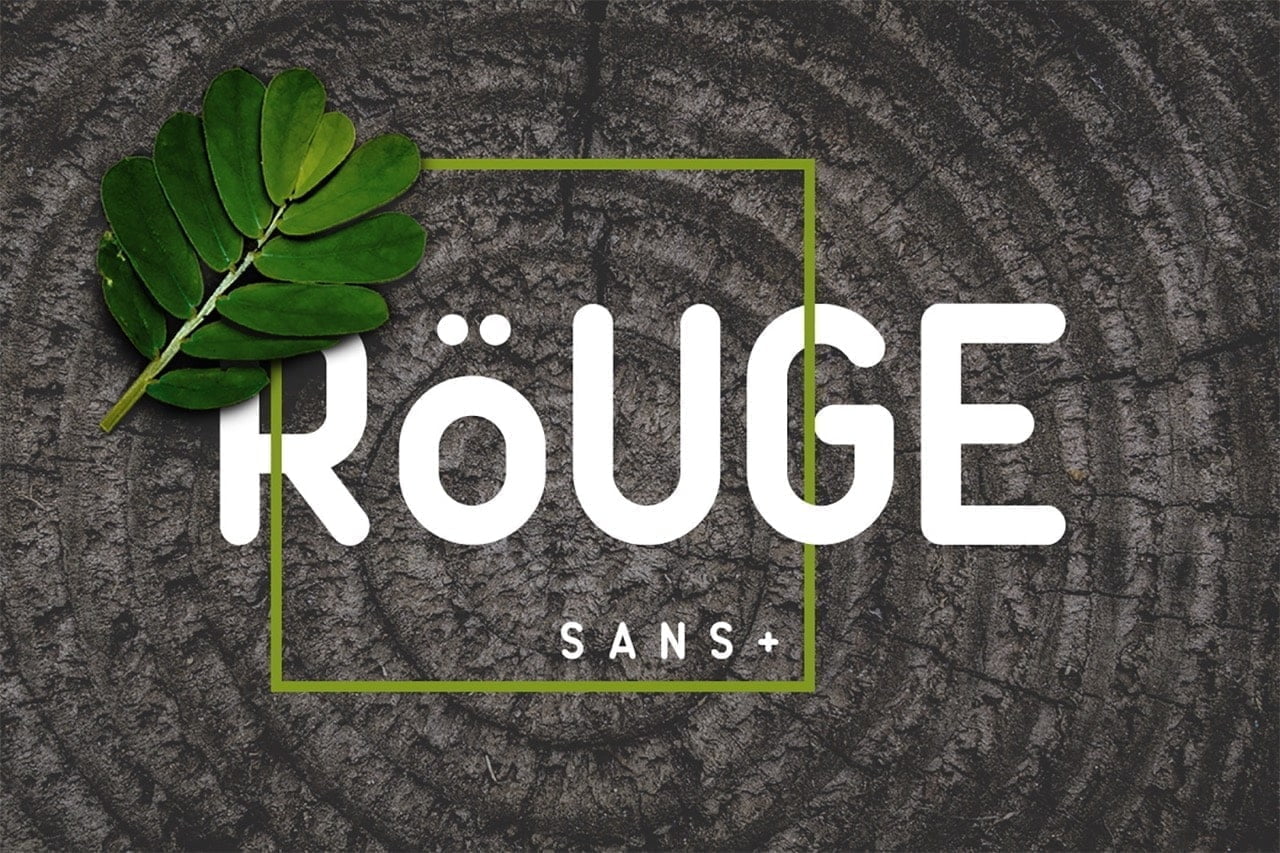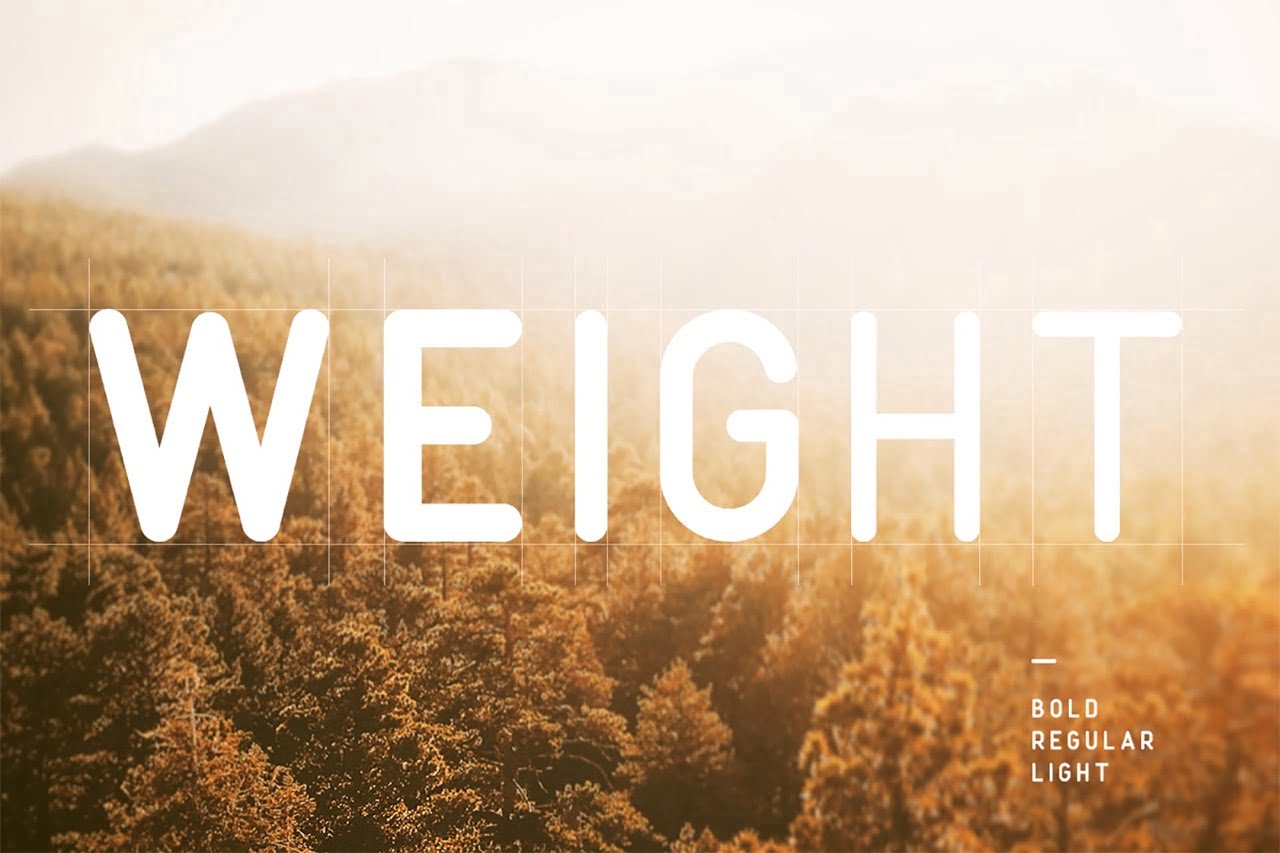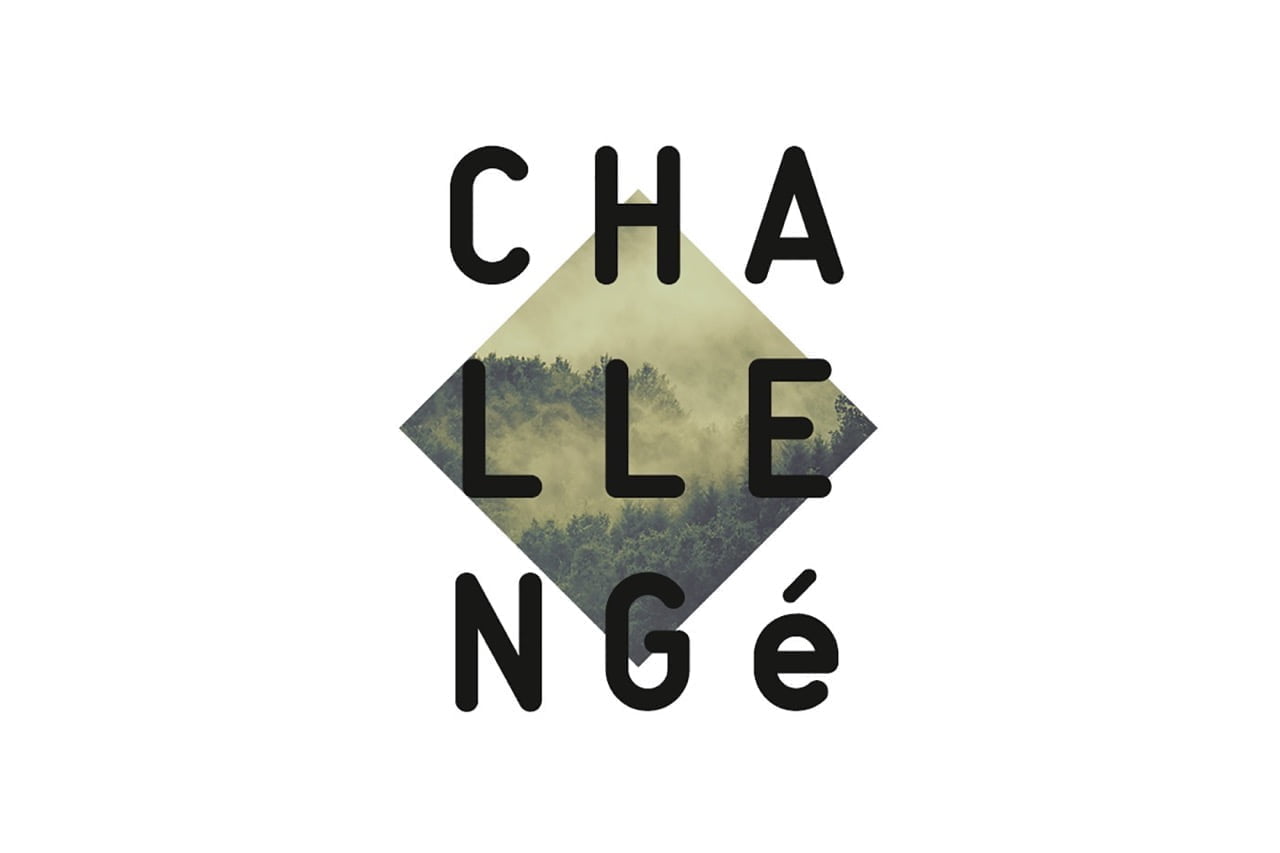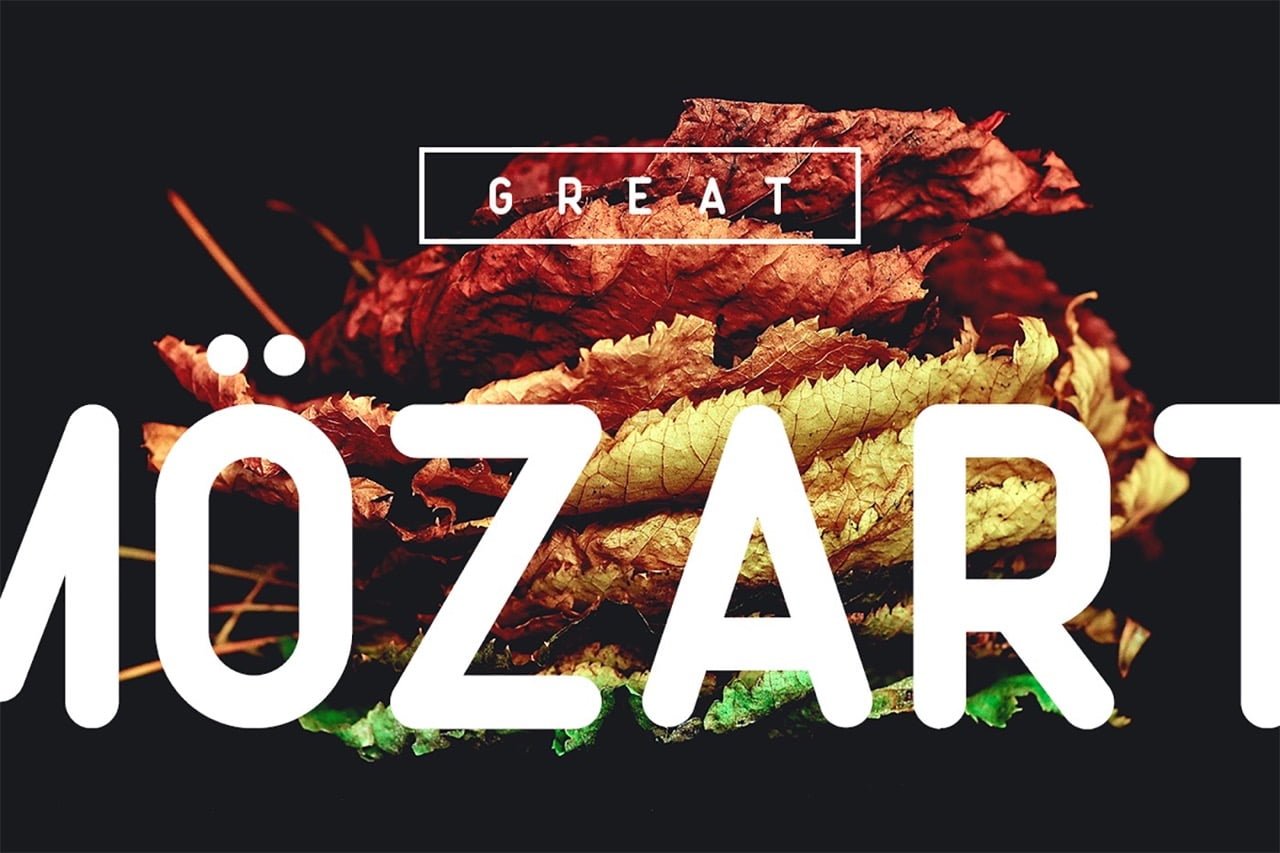
A clean and round sans serif font that is perfect for many different projects. Rouge Sans has smooth edges to simulate the vintage design with a touch of modernity.
- 3 Weights
Rouge Sans